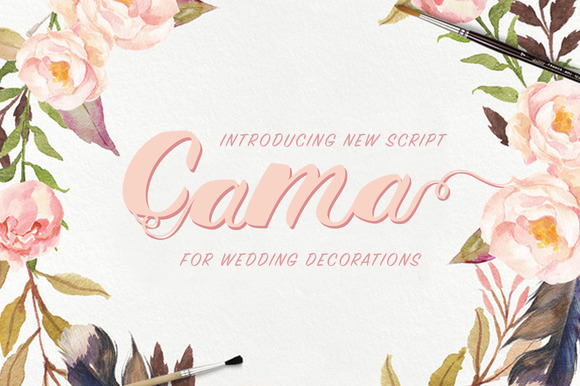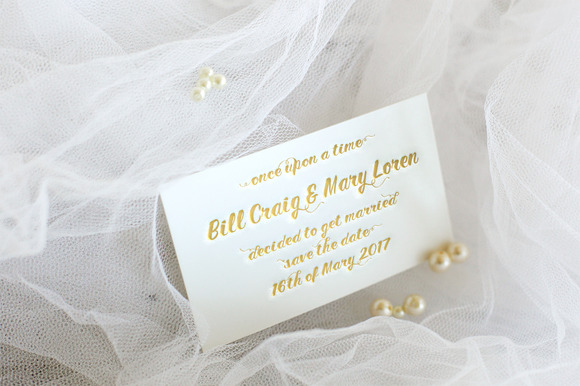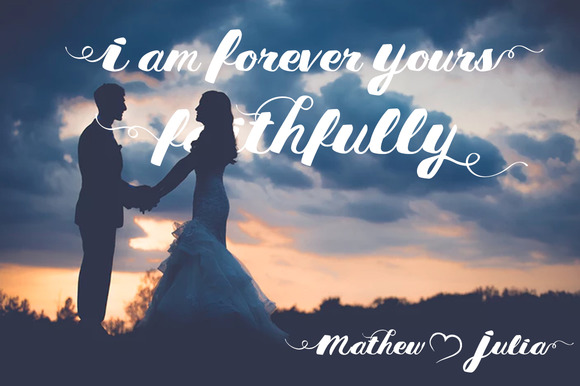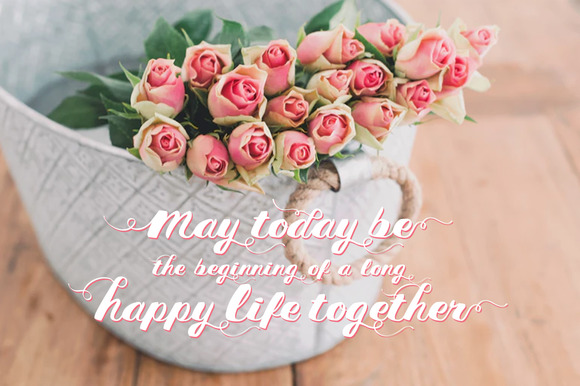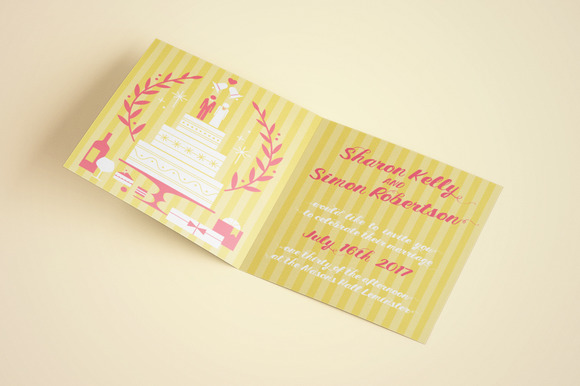
Cama Font
About Cama Font
Cama is a hand-lettered font designed by Etewut.
The Cama font is designed with wedding decorations in mind which makes it the perfect font for wedding invites & decorations, signs, nursery art and more.
The Cama font comes with lot’s of swooshes and swashes and is a PUA encoded font. This means you can easily use the font in any application.